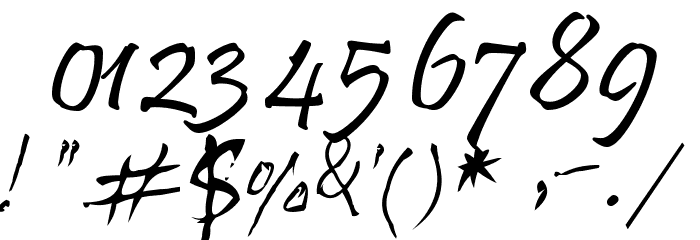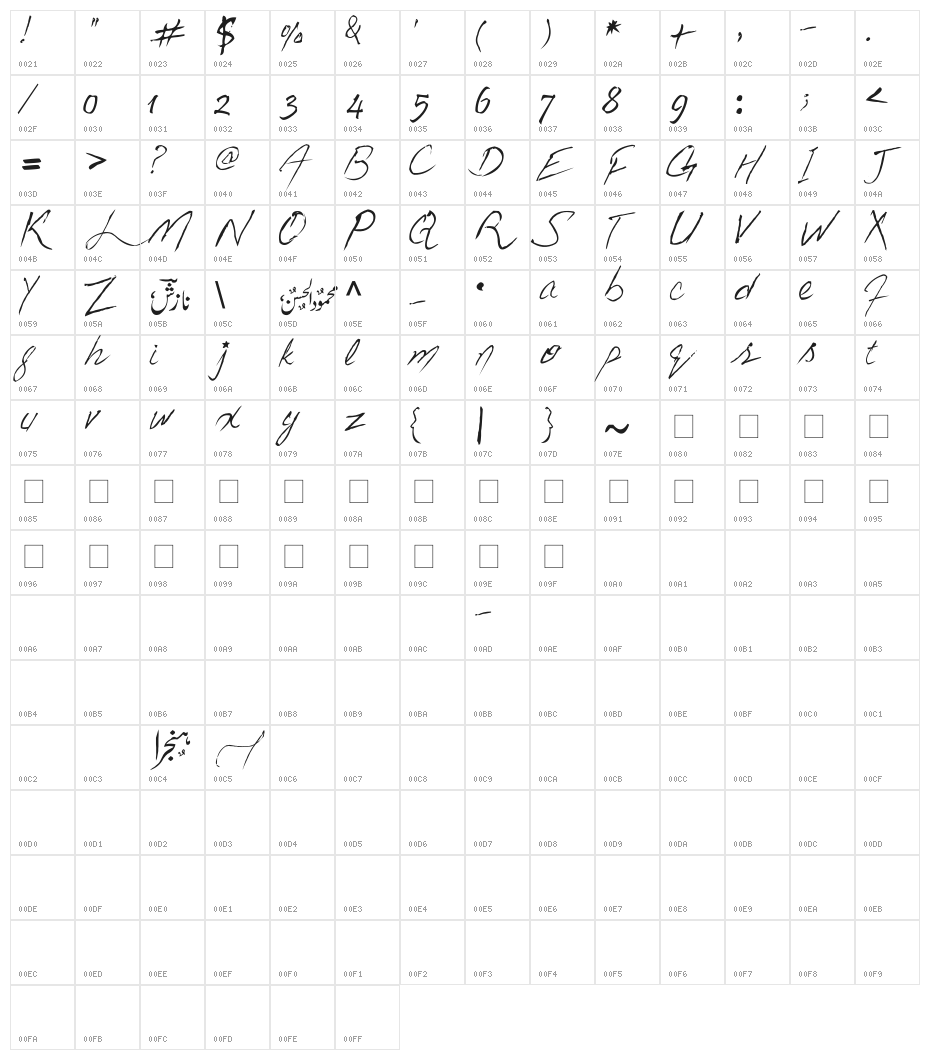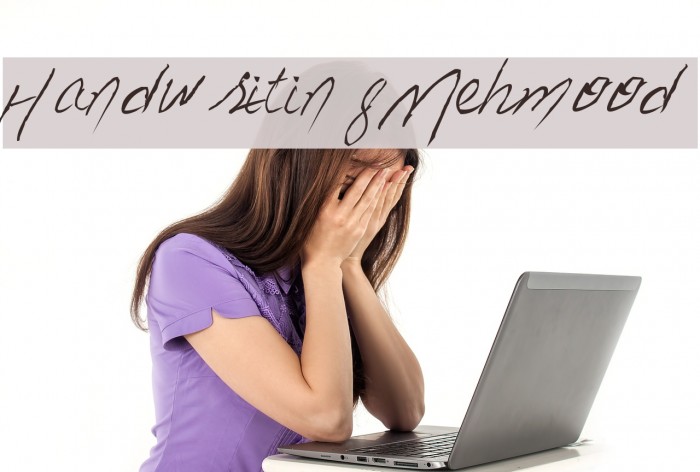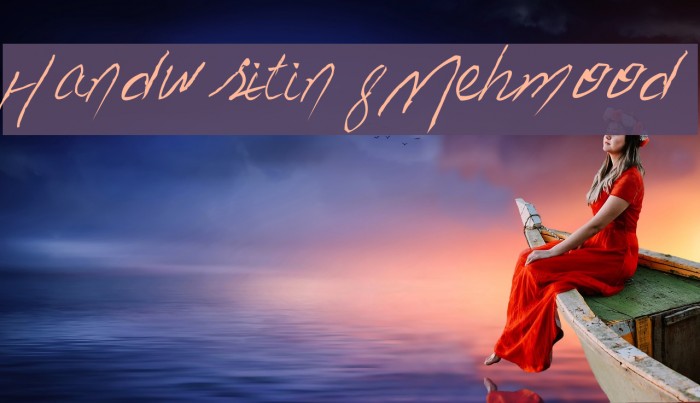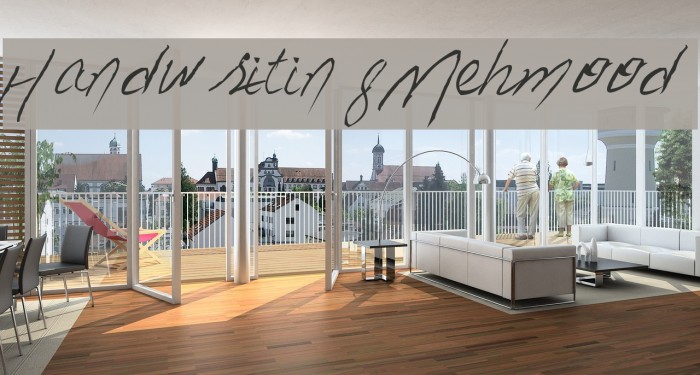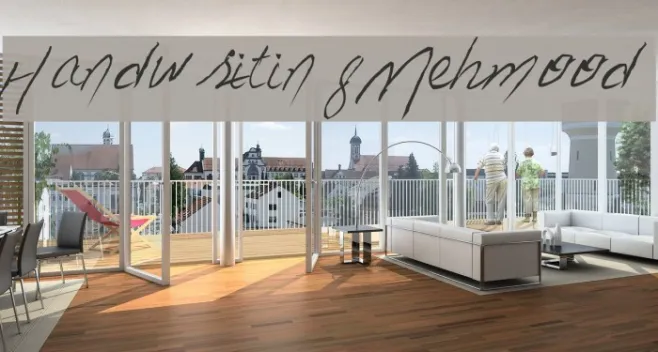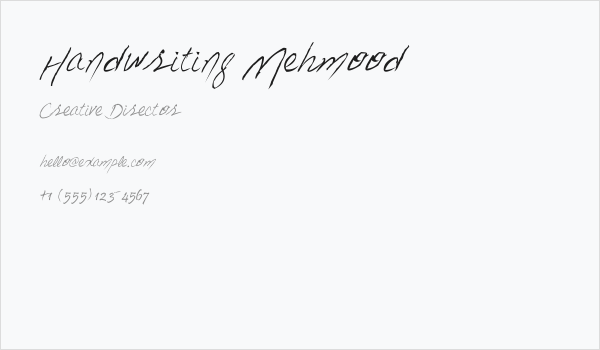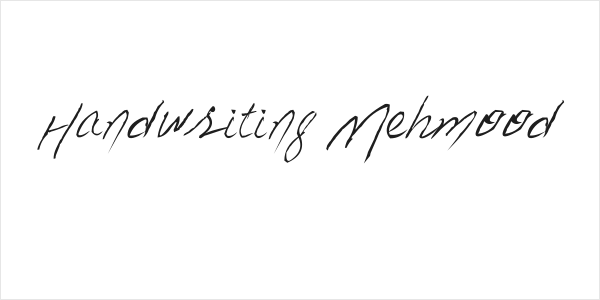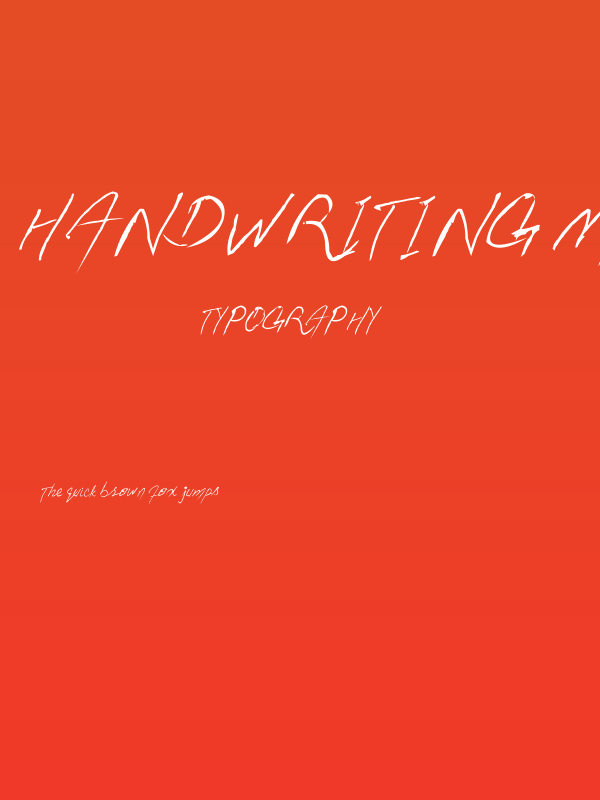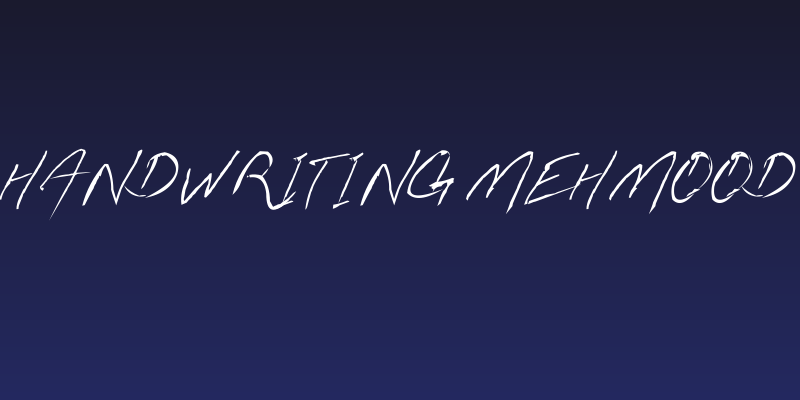
Handwriting Mehmood Font
Handwriting Mehmood Description
This font exudes a dynamic and expressive handwritten style, characterized by its fluid and cursive strokes. The letters are interconnected with a natural flow, mimicking the spontaneity of personal handwriting. The uppercase letters are bold and slightly slanted, while the lowercase letters maintain a consistent rhythm with elegant loops and curves. Numbers are distinct and maintain the same energetic style. Special characters are creatively integrated, adding to the font's overall artistic appeal. This font is perfect for projects that require a personal touch or an artistic flair.
| Overall Style | Artistic |
| Use Case | Logos, Invitations, Artistic Projects |
| Proposed Projects | Ideal for personal invitations, artistic posters, branding projects, and creative writing. |